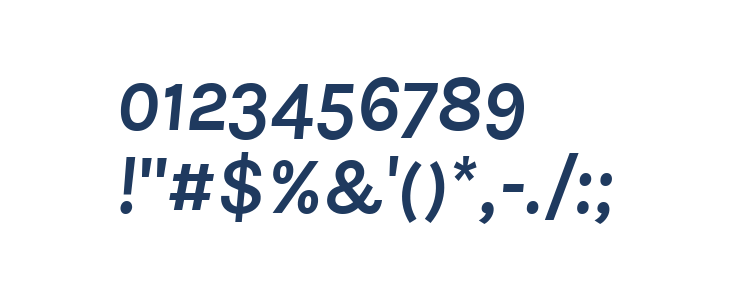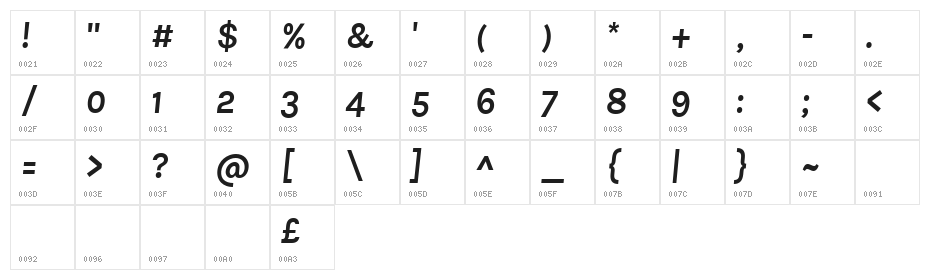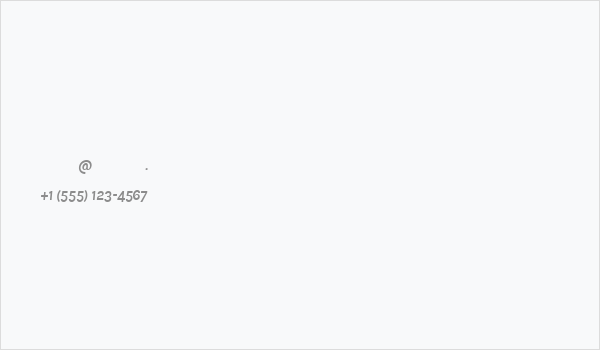
Karla Tamil Inclined Bold Font
Karla Tamil Inclined Bold Description
This font features a bold and inclined style, offering a modern and clean appearance. The characters are well-defined with a consistent stroke width, providing a strong visual impact. The numerals and special characters maintain the same boldness, ensuring uniformity across all glyphs. The inclination adds a dynamic feel, making it suitable for attention-grabbing designs. The spacing between characters is normal, allowing for easy readability while maintaining a compact look. The overall style is contemporary, making it versatile for various design applications.